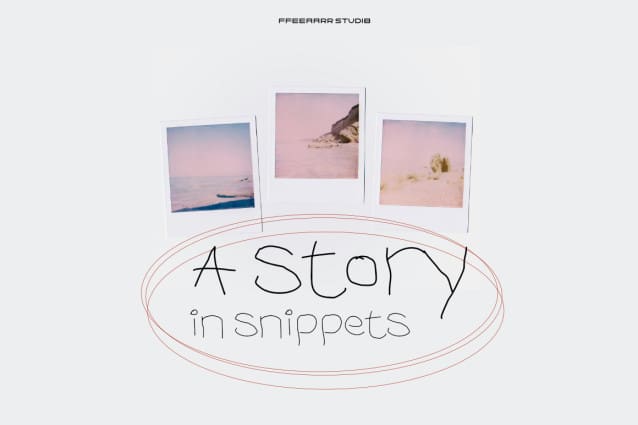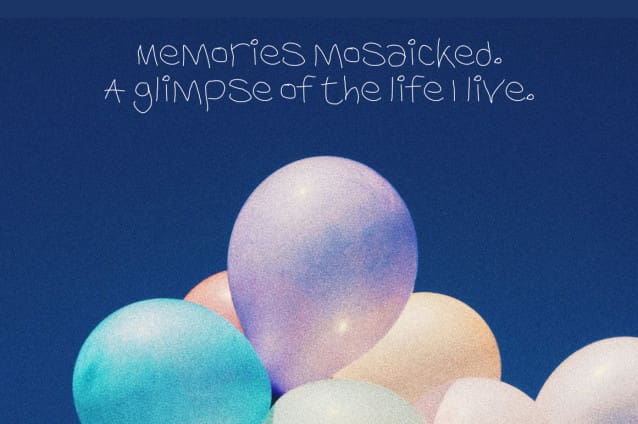
FF Comma Font
FF Comma Font, it would be a perfect choice to design posters, affiches, logos, t-shirt and magazine prints, eye-pleasing typographic designs and more.